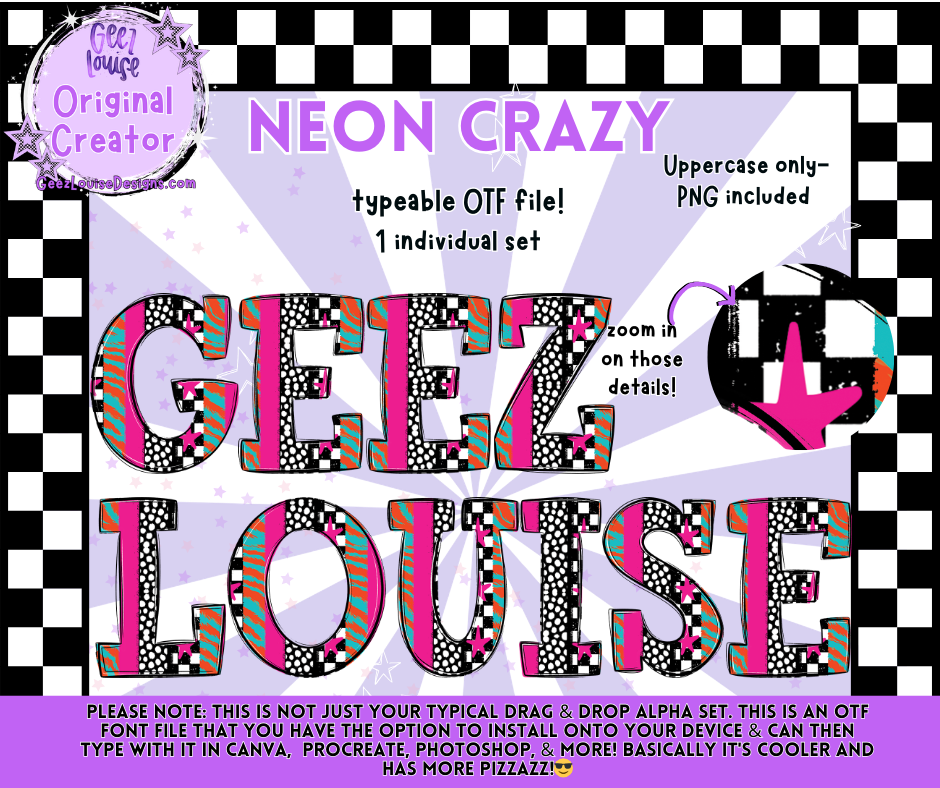
NEON CRAZY — Typeable OTF Alpha Font + PNGs
Meet Neon Crazy, the wild, electric, maximalist alpha that refuses to whisper. Packed with bold patterns, neon pops, and chaotic‑cute energy, this typeable OTF font is perfect for creators who love loud, expressive, eye‑catching designs.
• Uppercase A–Z
• High‑detail neon textures + mixed patterns